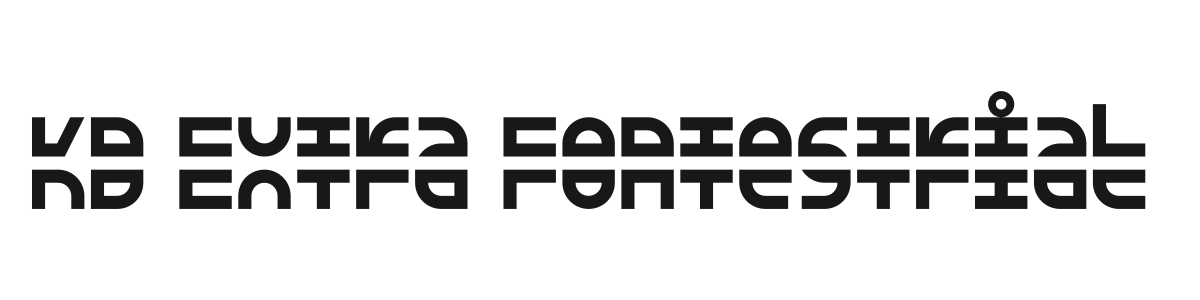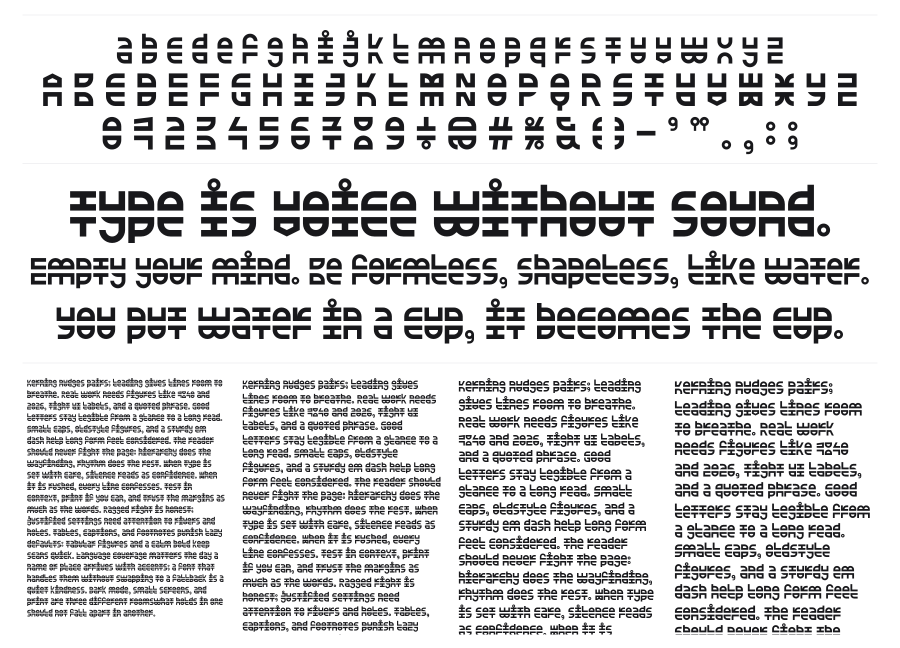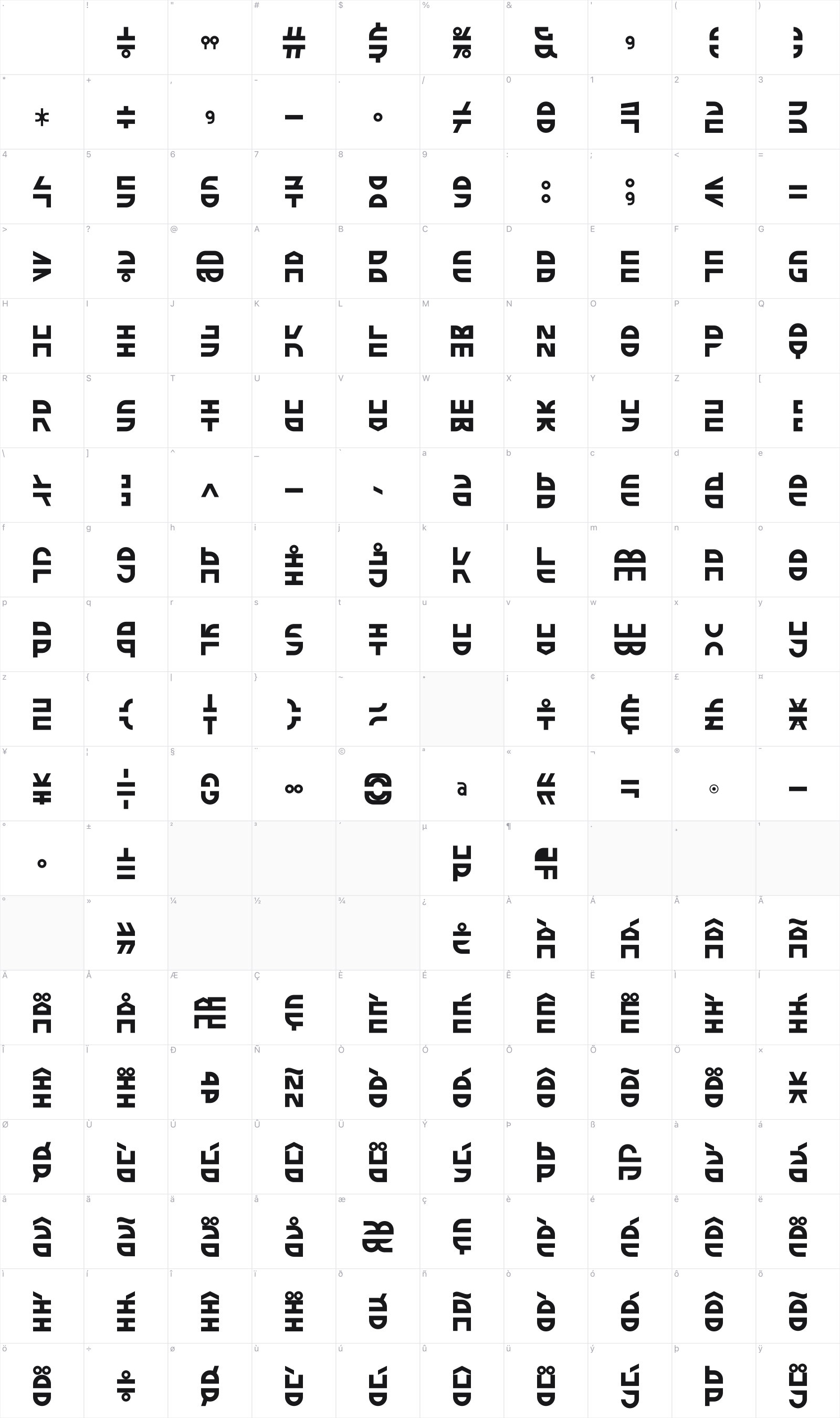
KD Extra Fontestrial
KD Extra Fontestrialicense is a bold modular display font built from rotated and flipped geometric segments. Each character is assembled from semicircles and rectangles in a way that creates a near-ambigram effect, making lines of text look almost readable upside-down. It is a strongly experimental choice suited to creative projects where the type itself is the visual statement.